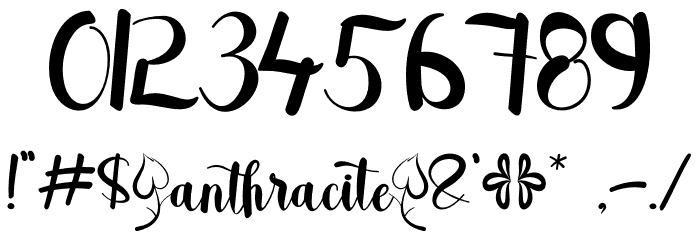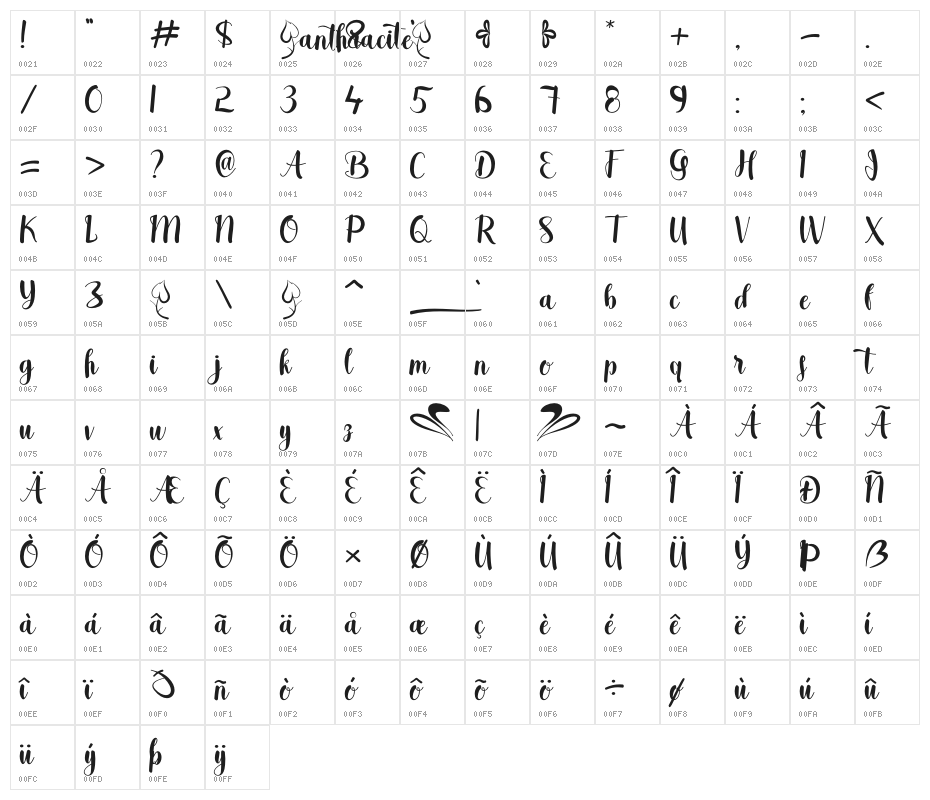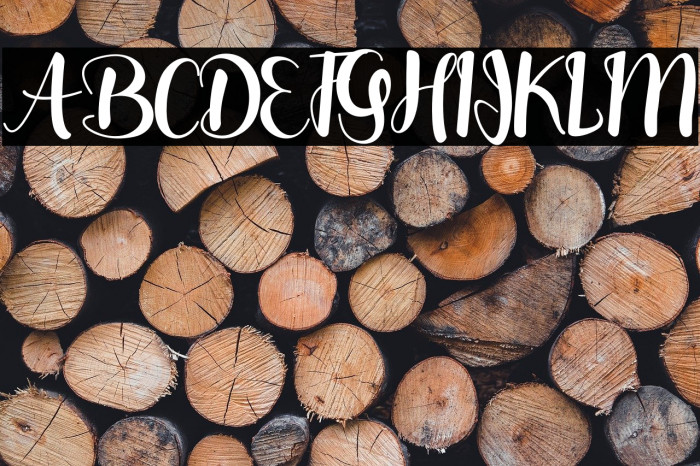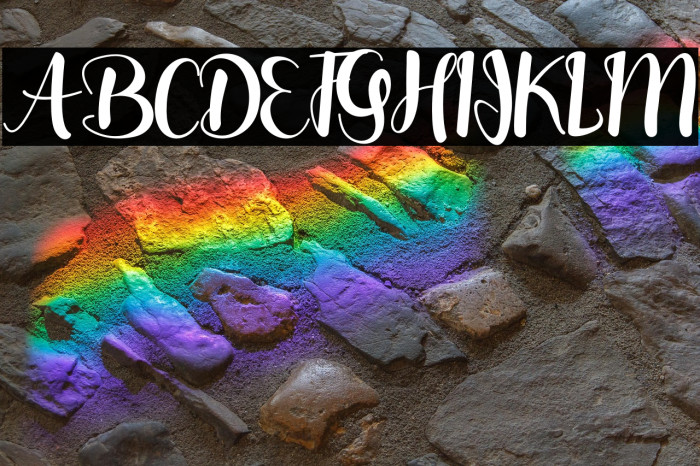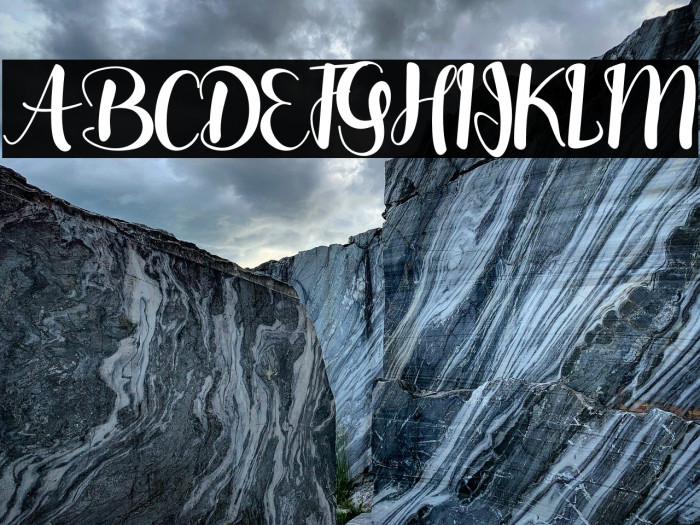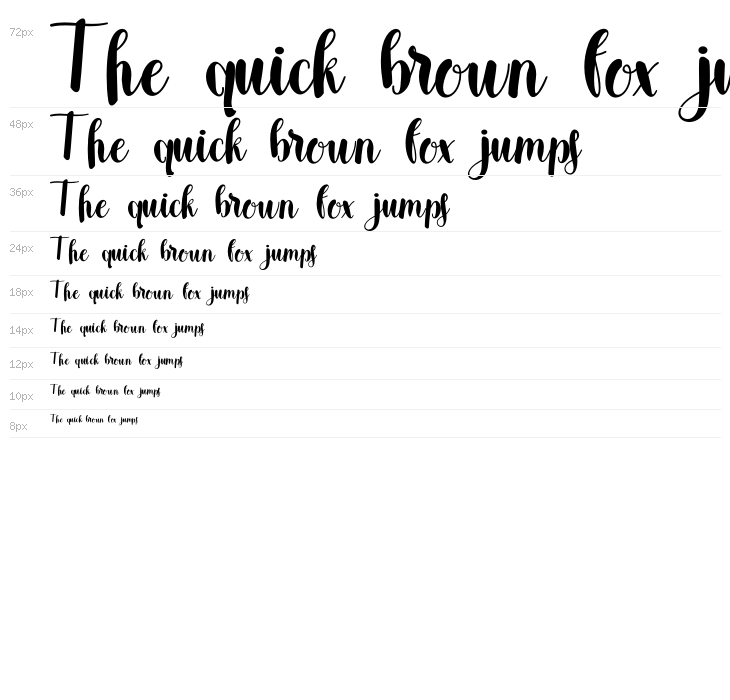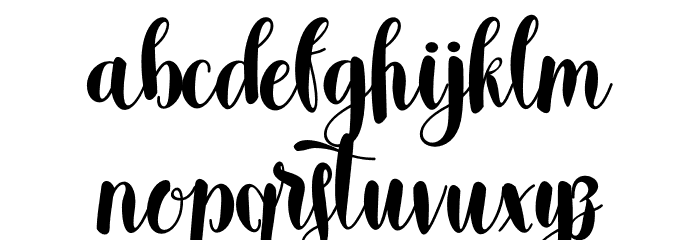
anthracite Font
anthracite Description
This font features a stylish and elegant script design with flowing, cursive letters that convey a sense of sophistication and creativity. The uppercase letters are bold and dynamic, while the lowercase letters maintain a consistent fluidity, making them perfect for artistic and decorative purposes. The numerals are distinct and maintain the same flowing style, ensuring readability while adding a touch of flair. Special characters are crafted with the same attention to detail, enhancing the font's versatility for various design needs. Overall, this font exudes a modern yet timeless appeal, suitable for projects that require a touch of elegance.
| Proposed Projects | Ideal for wedding invitations, branding, logos, and artistic projects. |